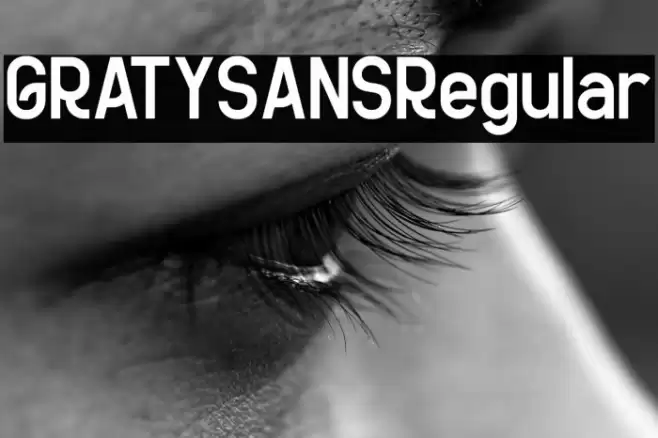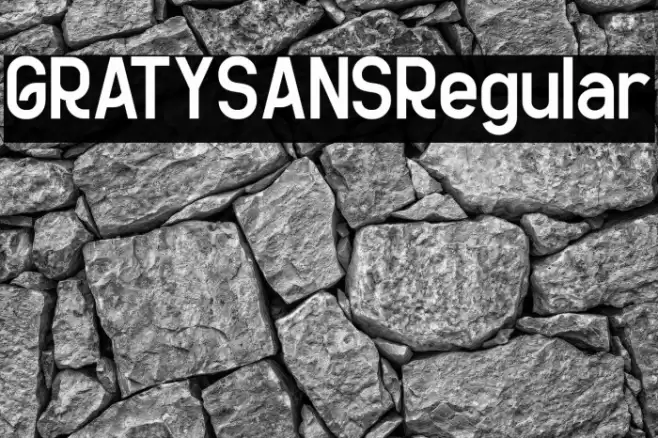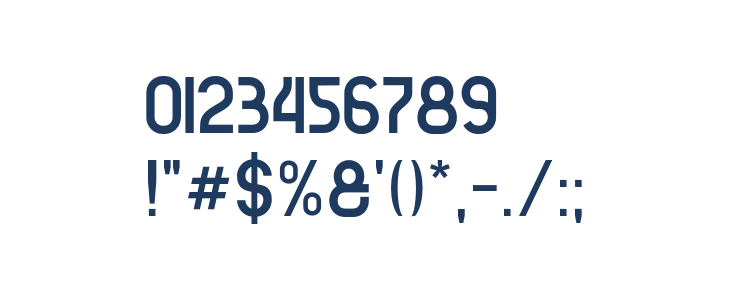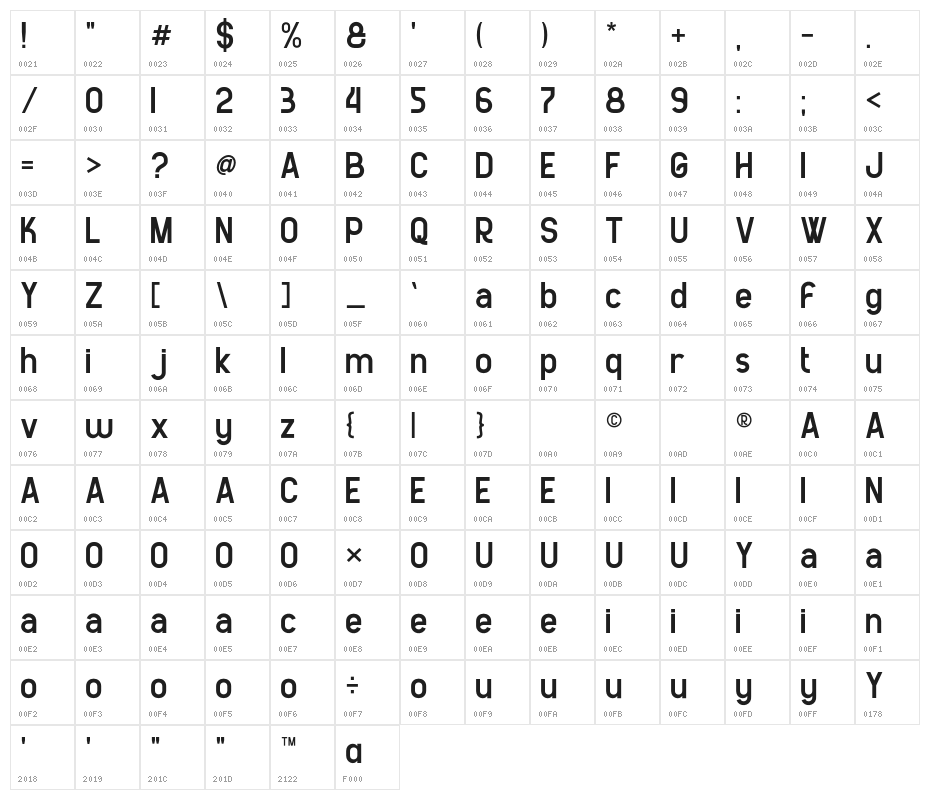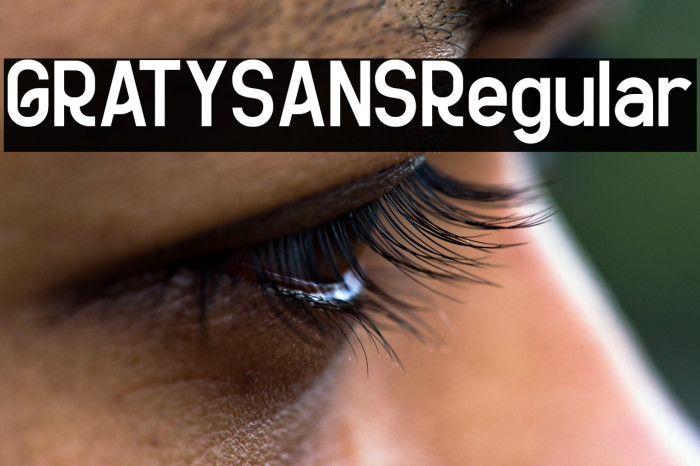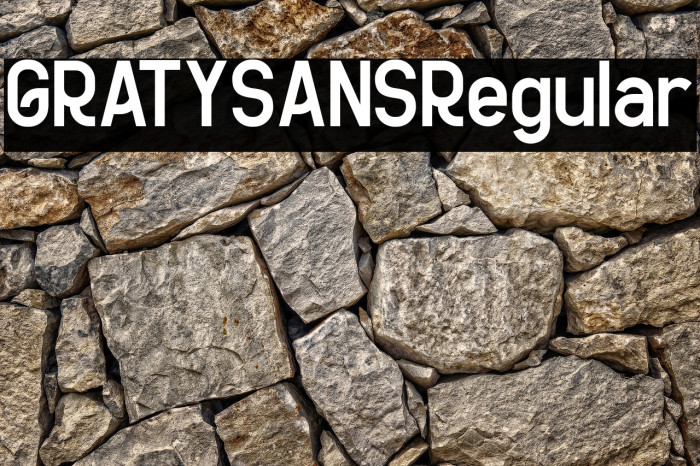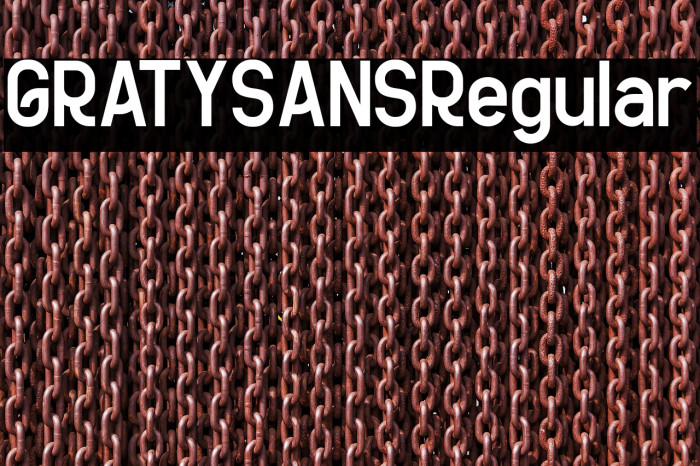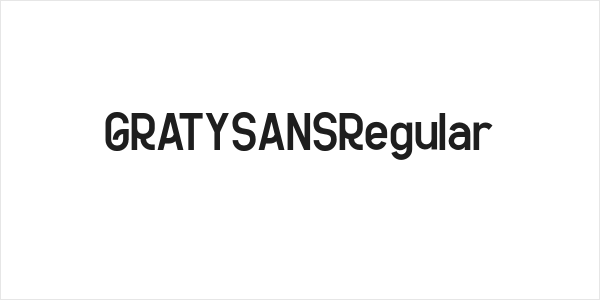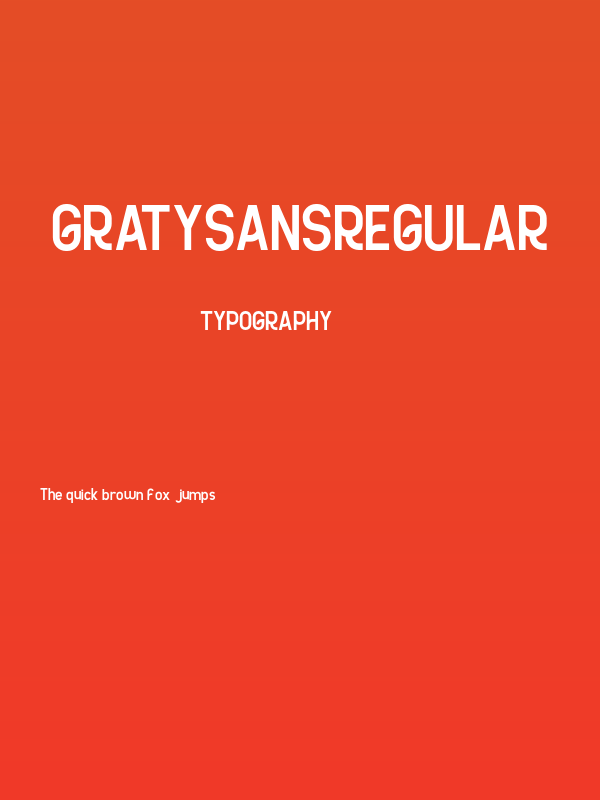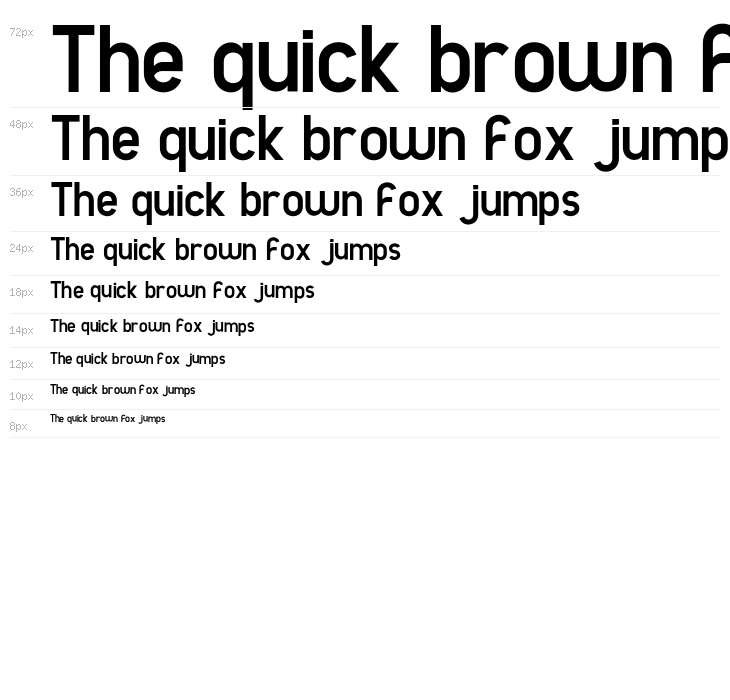
GRATYSANSRegular Font
GRATYSANSRegular Description
This font features a clean and modern sans-serif style with a geometric structure. The characters are well-balanced, with a consistent stroke width that provides a uniform appearance. The uppercase letters are bold and impactful, while the lowercase letters maintain a friendly and approachable look. The numerals are clear and easily distinguishable, making them suitable for various applications. Special characters are designed to complement the overall aesthetic, ensuring versatility in use. The font's simplicity and clarity make it ideal for both digital and print media.
A modern, geometric sans-serif font with a clean and uniform appearance from Regular fonts.
- Proposed Projects: Ideal for branding, advertising, web design, and editorial projects.